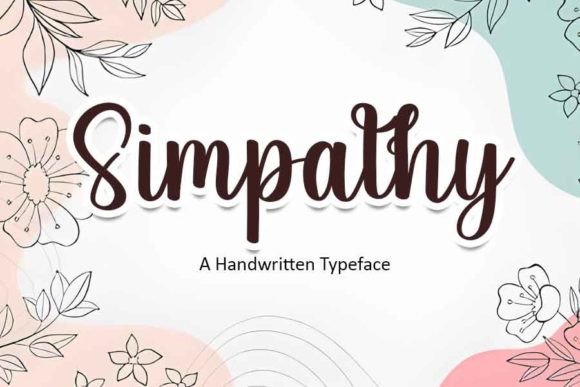
Behold, Simpathy Font: A Journey into the Realm of Script Elegance
In a world where individuality and authenticity reign supreme, allow us to introduce you to Simpathy Font, a captivating script font designed to make a statement. Its flowing curves, natural charm, and undeniable elegance will effortlessly elevate your designs, leaving an unforgettable impression on your audience.
Step into the enchanting world of Simpathy, where each letter dances across your screen with a graceful fluidity. Its organic, handwritten style exudes a sense of intimacy and warmth, instantly captivating the hearts of your readers. Whether crafting formal documents or adding a personal touch to your creative projects, Simpathy has the versatility to adapt to your every need.
Unleash Your Creativity with Simpathy:
1. Design Enchanting Invitations:
Imagine wedding invitations that tell a love story through their very essence. With Simpathy, you can create invitations that reflect the unique bond between two souls, adding a layer of heartfelt elegance to this momentous occasion. Its flowing lines will perfectly capture the joy and excitement of this special day.
2. Thank You Notes That Leave a Lasting Impression:
Express your gratitude with Simpathy's charming script. Create personalized thank you cards that convey your heartfelt appreciation, leaving a lasting impression on those who receive them. Each handwritten word will carry the weight of your sincerity, transforming a simple note into a cherished keepsake.
3. Wedding Designs That Reflect Your Love Story:
Let Simpathy script weave the tale of your love story into every element of your wedding décor. From the save-the-date announcements to the table numbers, Simpathy's graceful strokes will add an air of romance and enchantment to your special day. Its timeless beauty will be a constant reminder of the love that brought you together.
4. Greeting Cards That Embrace the Joy of Connection:
Spread happiness and love with Simpathy-designed greeting cards. Its playful and joyous style will infuse your cards with an irresistible charm, making them a delightful surprise for your loved ones. Whether it's a birthday, anniversary, or just a simple hello, Simpathy's script will convey your warm wishes in a truly remarkable way.
5. Logos That Stand Out with Distinction:
Create logos that exude sophistication and elegance with Simpathy. Its distinct character will set your brand apart, making it instantly recognizable and memorable. Simpathy's script will add a touch of refinement to your logo, evoking a sense of trust and professionalism among your clientele.